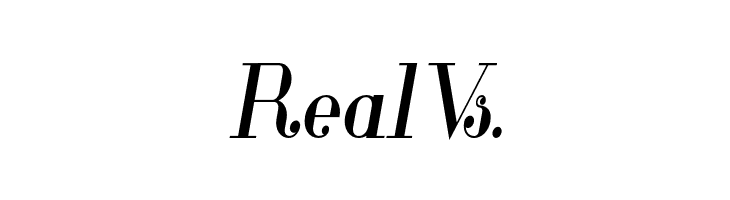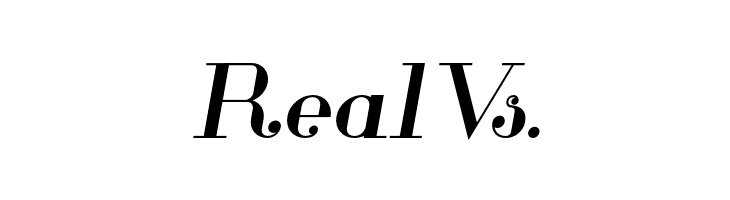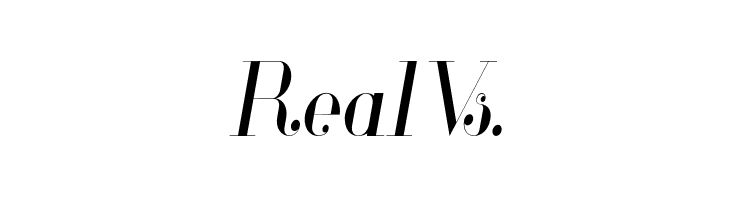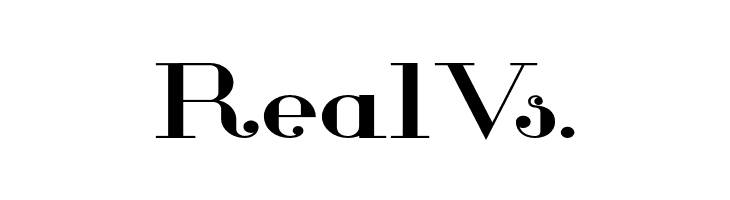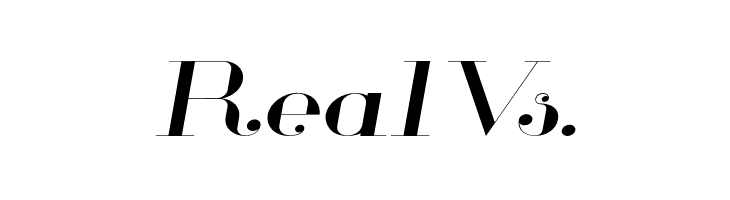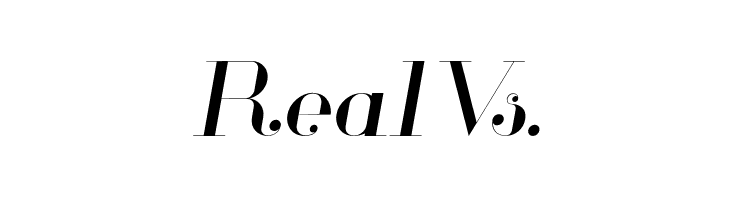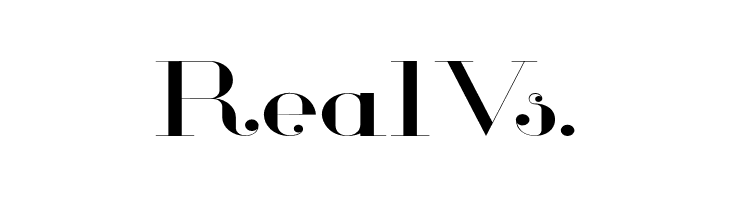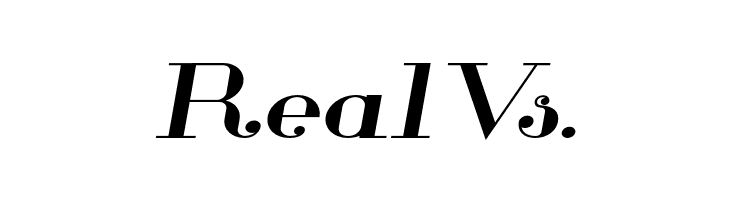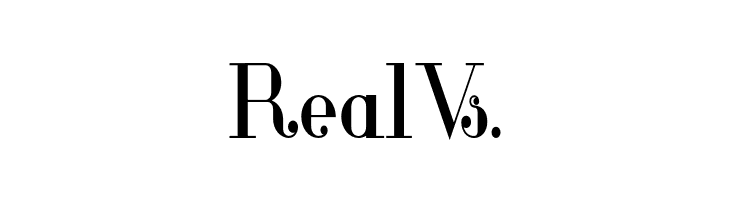
• Glamor-LightCondensedItalic
An elegant, high-contrast, light, condensed italic typeface.
• Glamor-LightExtended
An elegant, high-contrast typeface with elongated, stylish characters.
• Glamor-LightExtendedItalic
An elegant, high-contrast, light italic font with extended width and classic serifs.
• Glamor-LightItalic
A refined, high-contrast light italic font with elegant, elongated characters.
• Glamor-MediumCondensed
A modern, high-contrast serif font with tall, condensed letterforms.
• Glamor-MediumCondensedItalic
Elegant, modern, and italic with high contrast and condensed form.
• Glamor-MediumExtended
A high-contrast, elegant serif font with a modern yet classic appeal.
• Glamor-MediumExtendedItalic
An elegant, high-contrast italic typeface with medium weight and extended width.
• Glamor-MediumItalic
An elegant, high-contrast italic typeface with medium weight and refined style.